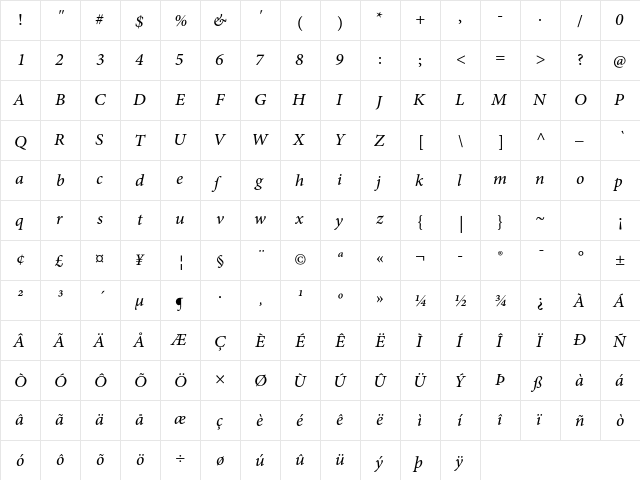
Adobe Arabic Italic
| Foundry | Tiro Typeworks for Adobe Systems Incorporated. |
| Designer | Tim Holloway (Arabic) and Robert Slimbach (Latin) |
Design Context for Adobe Arabic Typeface
Adobe Arabic offers clean, dependable letterforms without strong stylistic allegiance, making it a practical choice for designers who need flexibility. The dynamic lean of this cut emphasises speed and emphasis in any layout.
Pro Tip: Use Adobe Arabic for emphasis, pull quotes, and subheadings where its slanted energy can add rhythm to the layout.